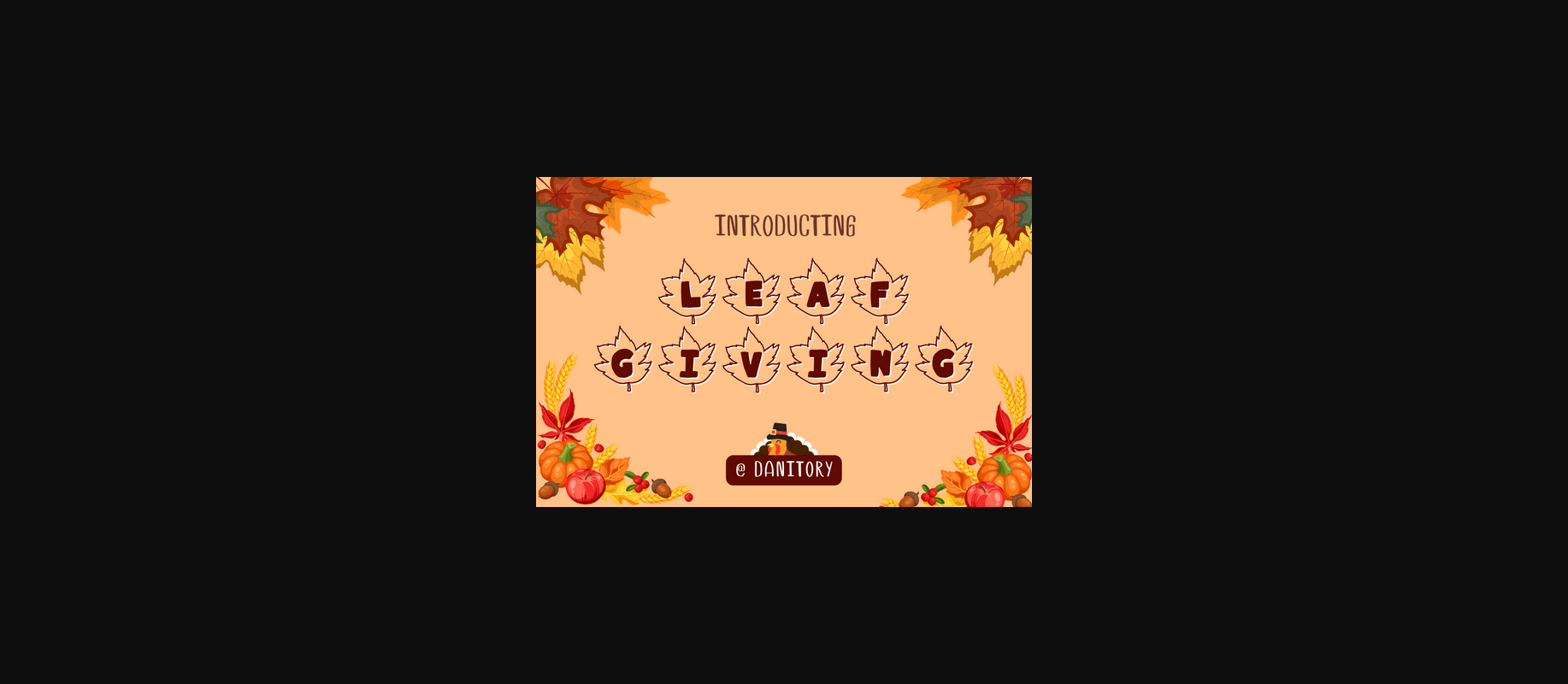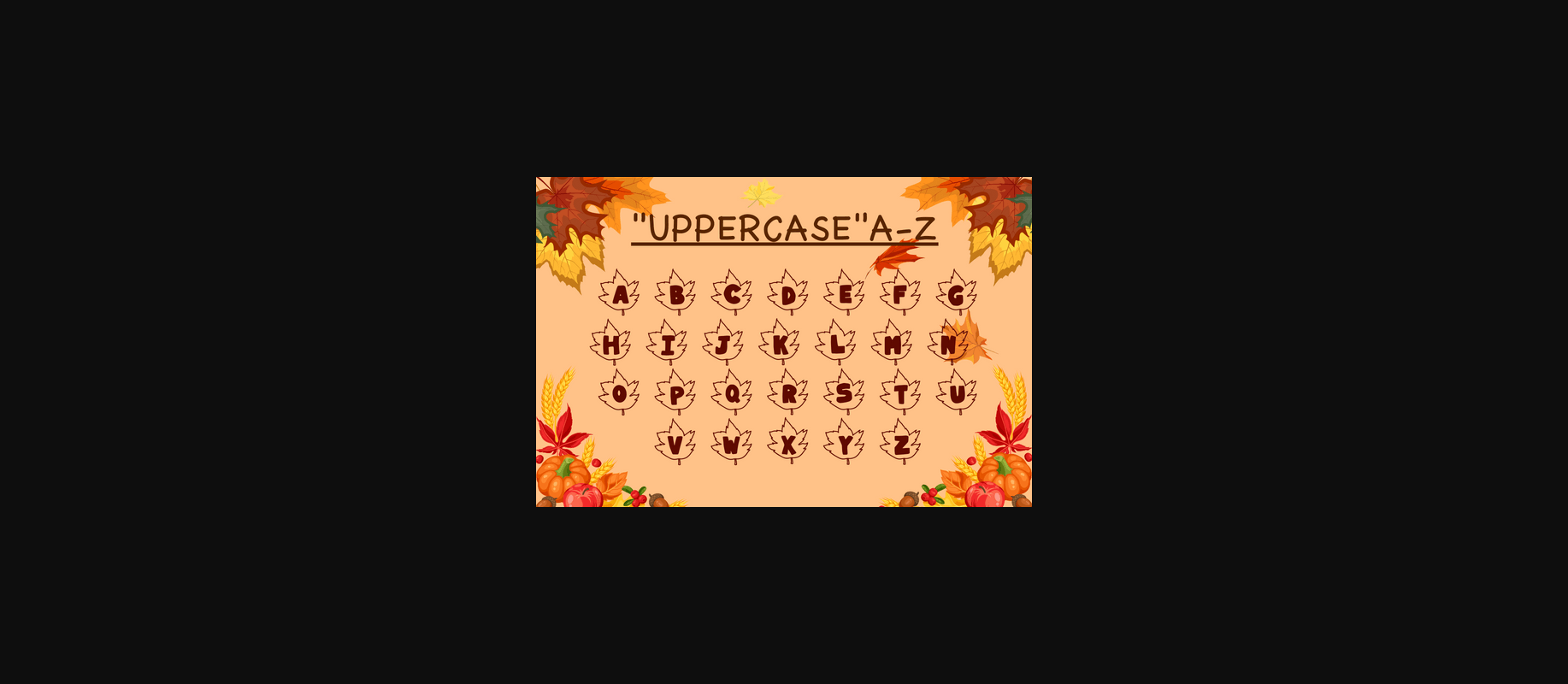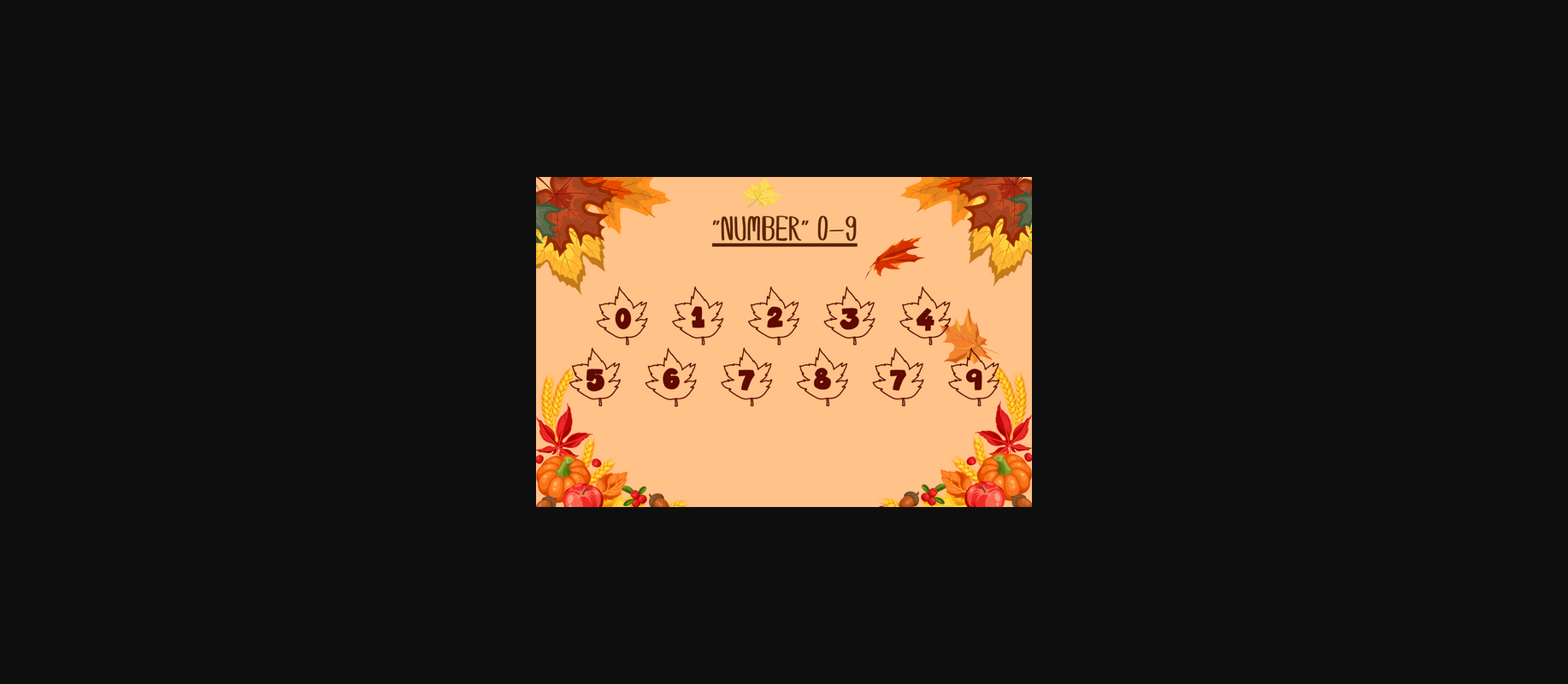
About Leaf Giving Font
Leaf Giving is a cute decorative font designed for the upcoming Thanksgiving day. Add it to your festive crafty ideas and you will be amazed by the outcome generated! With this font, you can make your activities more fun.